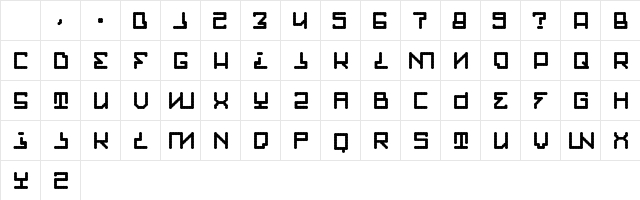
Walkthru is a composed and adaptable typeface that performs quietly and consistently across a wide range of design contexts.
Pro Tip: Use Walkthru in both headline and body roles to test its range before committing to a single application.